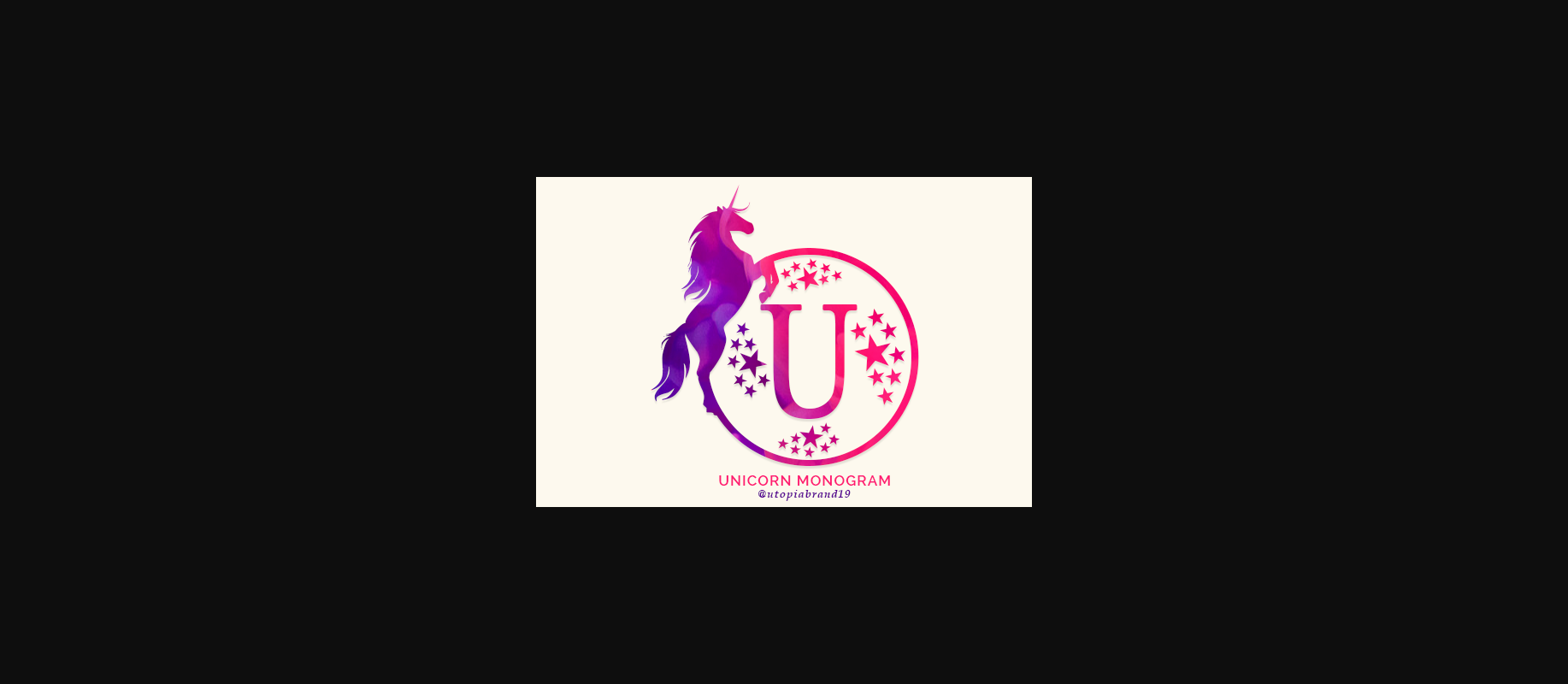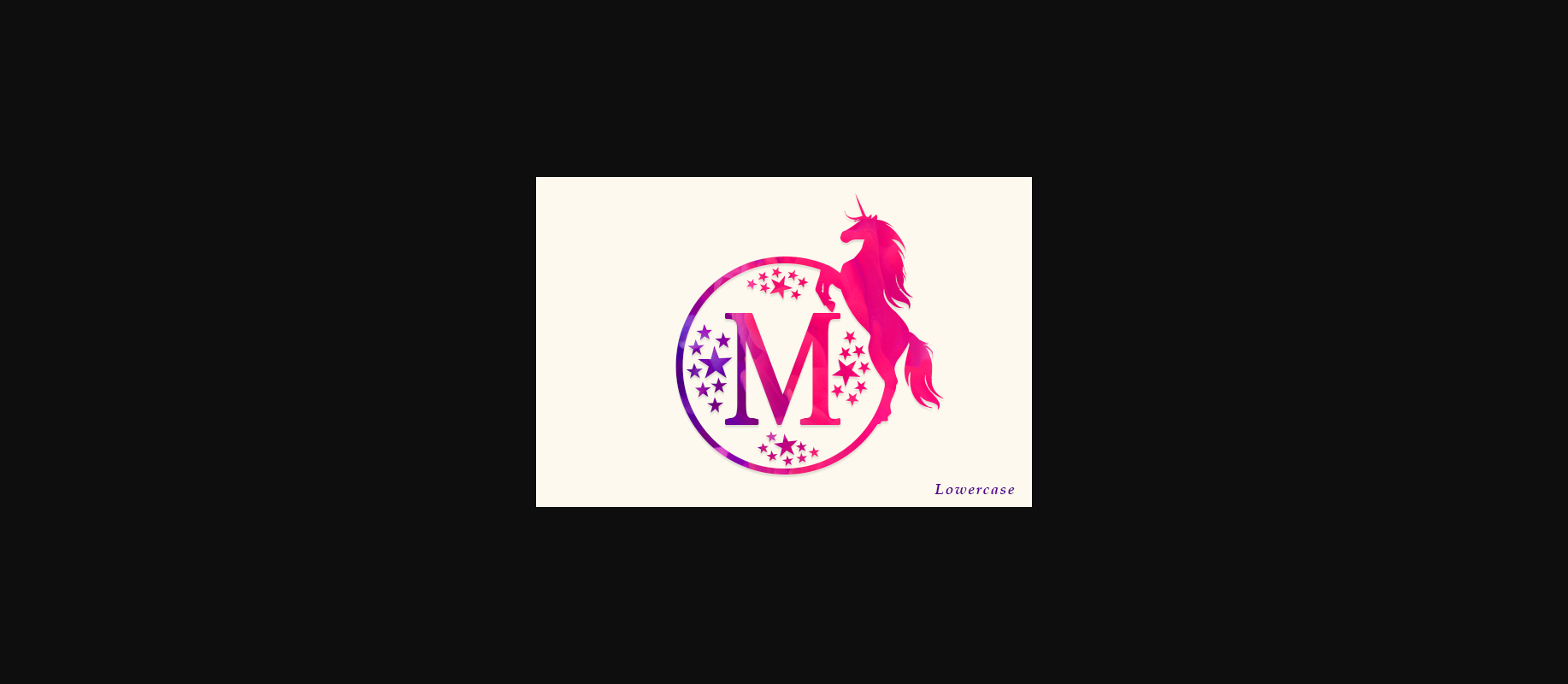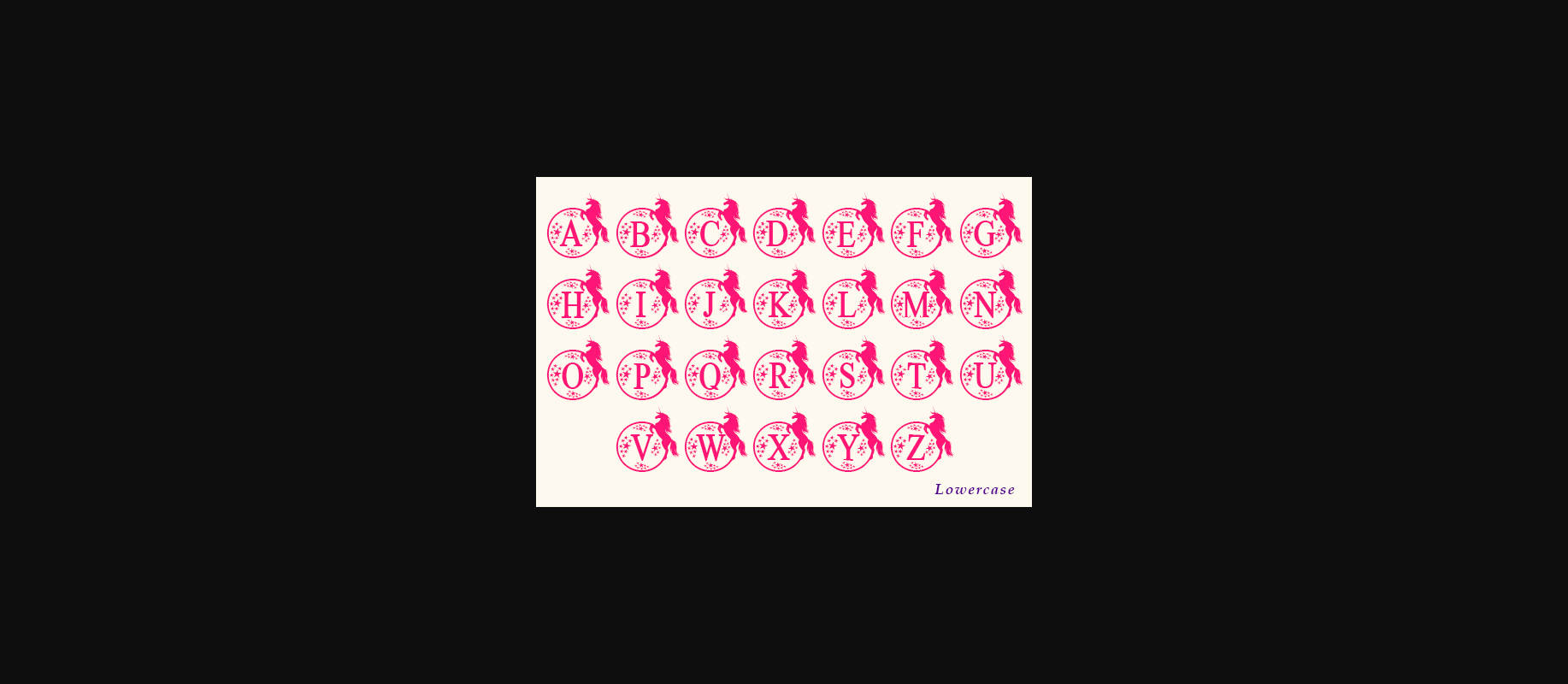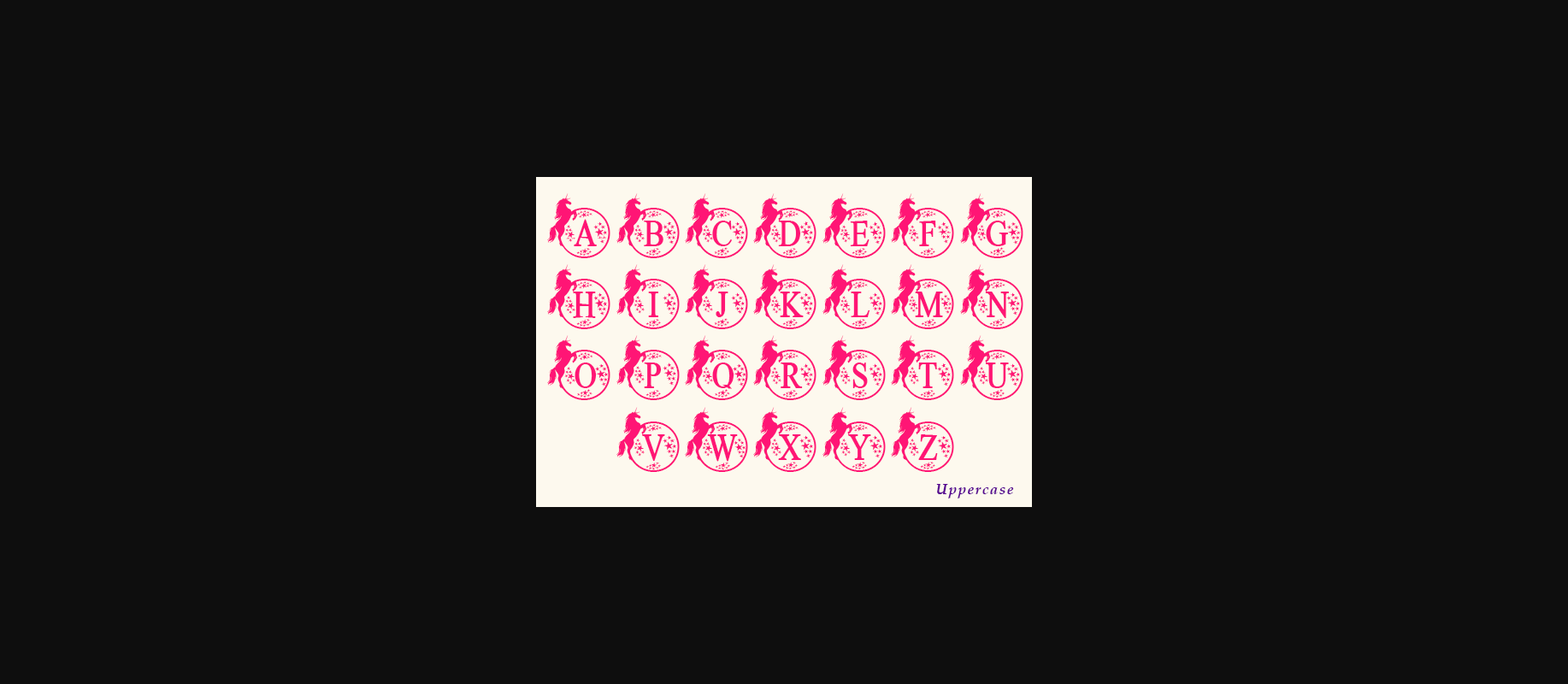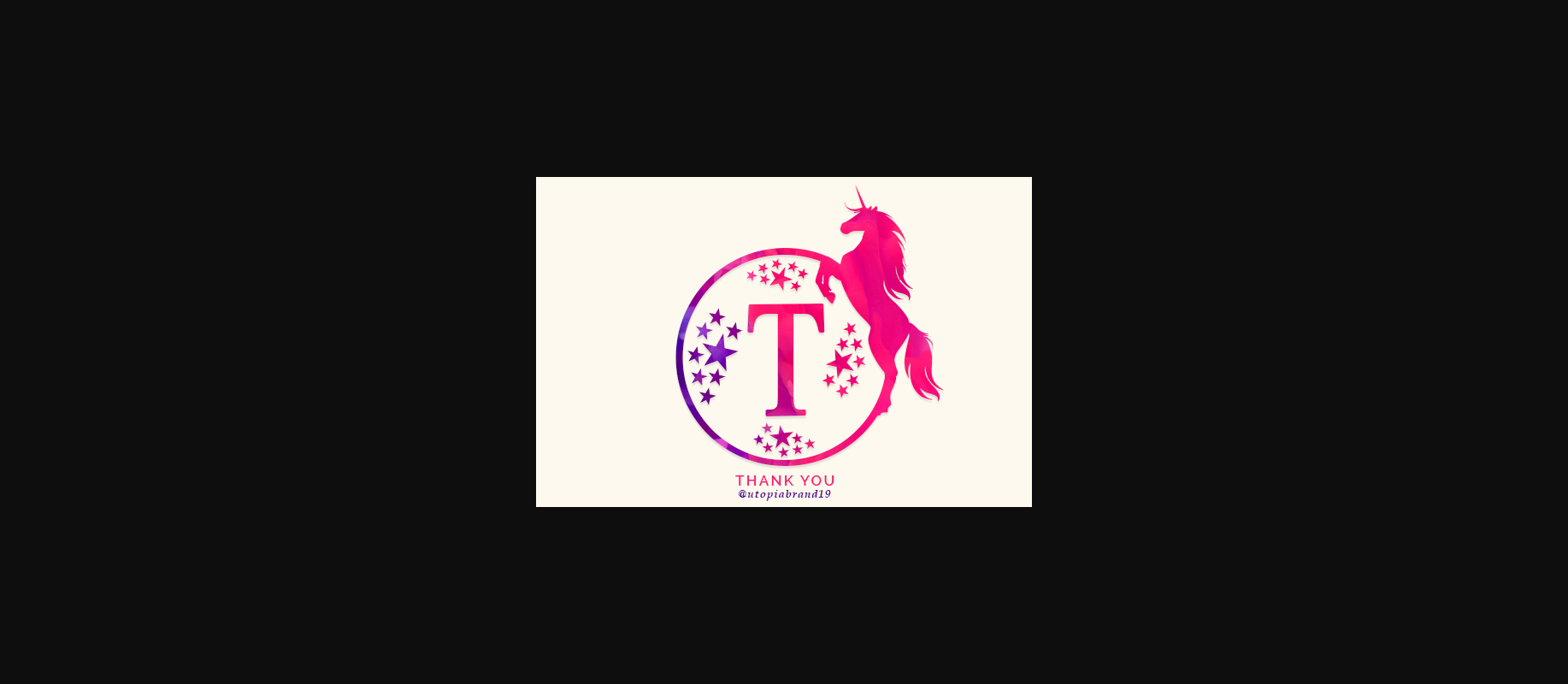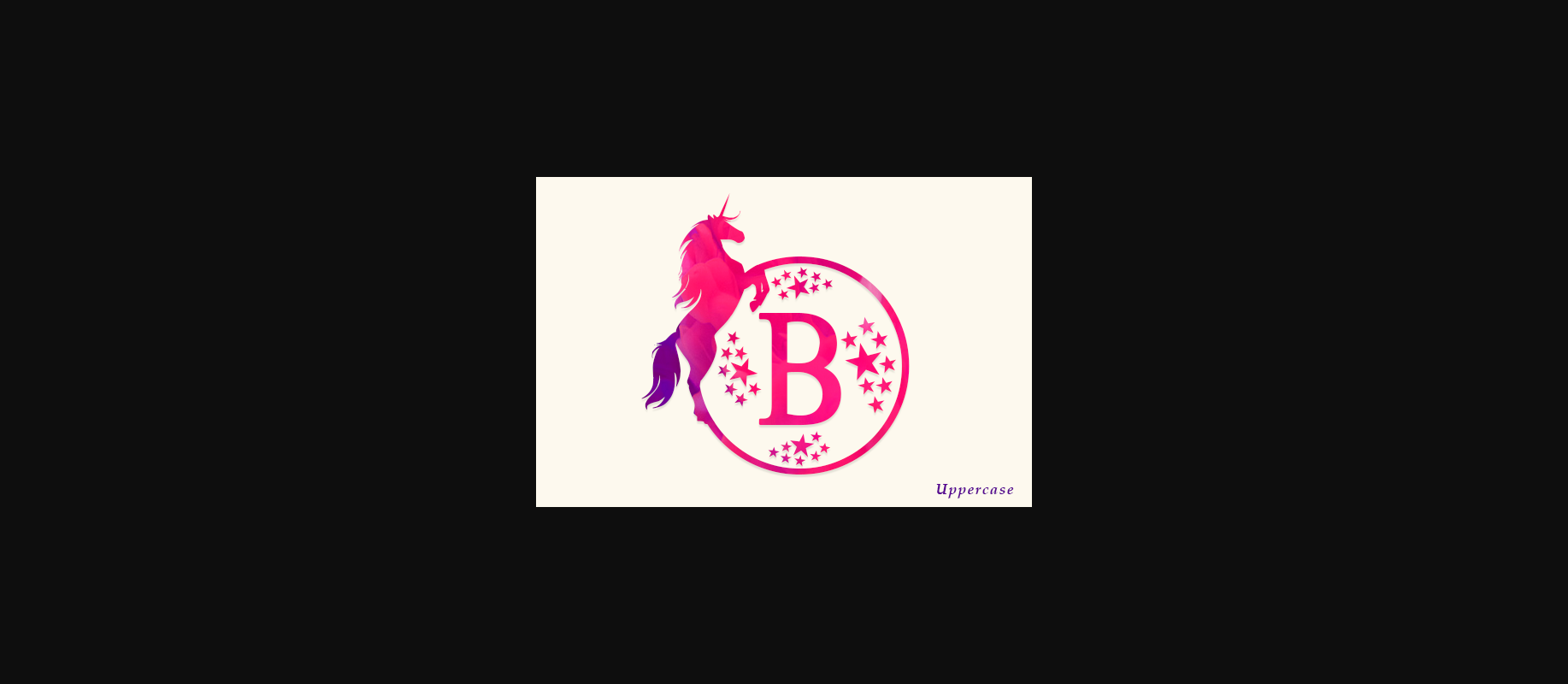
Unicorn Monogram Font
About Unicorn Monogram Font
Unicorn Monogram is an elegant decorative font, featuring lovely ornaments. Fall in love with its authentic feel and use it to create gorgeous, beautiful stationary art, eye-catching social media posts, and cute greeting cards.